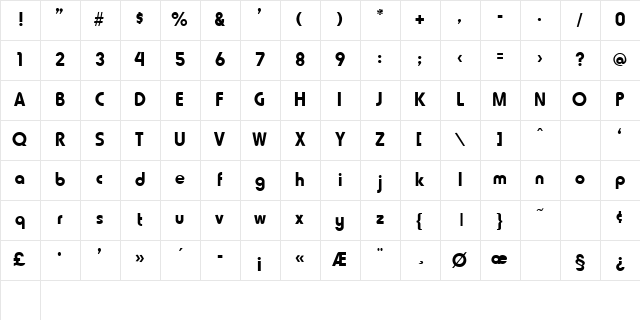
Shemp-Fat Regular
Complete Shemp-Fat Regular glyph index. Displaying only characters natively supported by Shemp-Fat Regular font.
Design Context for Shemp-Fat
Shemp-Fat is a composed and adaptable typeface that performs quietly and consistently across a wide range of design contexts.
Pro Tip: Use Shemp-Fat in both headline and body roles to test its range before committing to a single application.